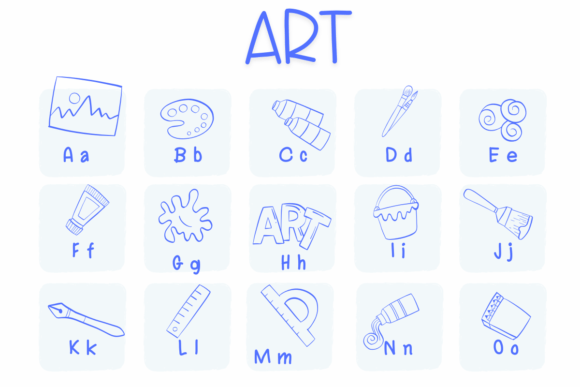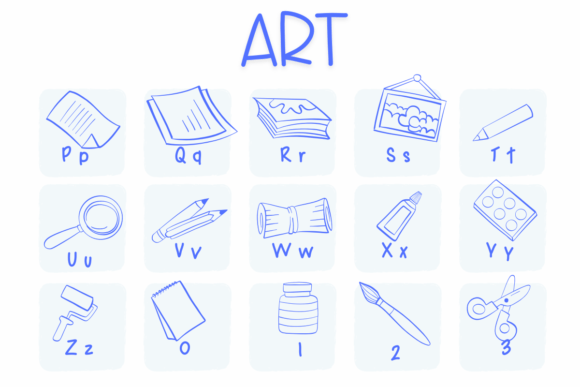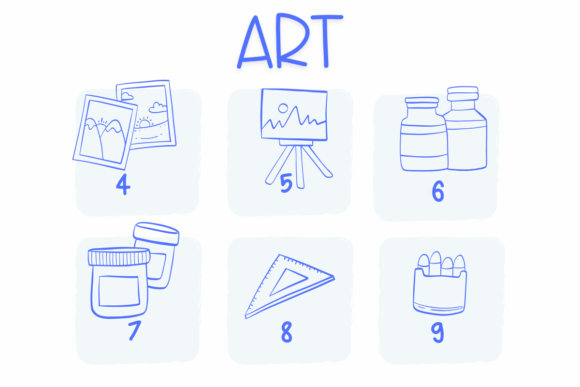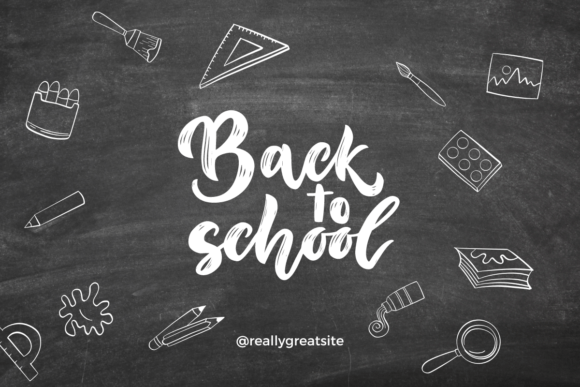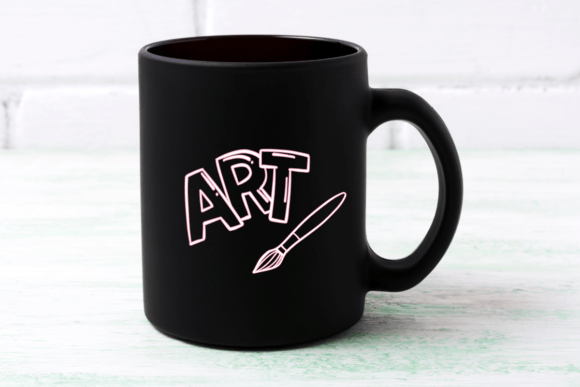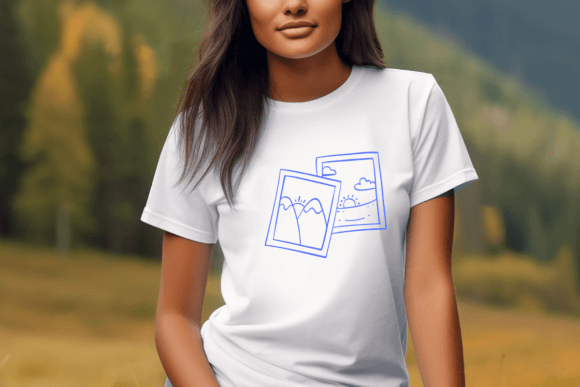
Unleash Your Creativity with Art Font: The Ultimate Dingbat Font for Designers and Crafters
Are you a designer, crafter, or artist looking for a unique and creative way to add flair to your projects? Look no further than the Art Font, a dingbat font featuring a wide range of artistic tools like paintbrushes, pencils, and more. In this article, we’ll dive into the world of Art Font and explore its features, benefits, and uses, helping you to unlock its full potential and take your designs to the next level.
What is Art Font?
Art Font is a dingbat font that showcases a vast collection of artistic tools and symbols, carefully crafted to inspire creativity and add a touch of elegance to your designs. With Art Font, you can add a splash of color and personality to your projects, making them stand out from the crowd. Whether you’re working on a graphic design project, crafting a handmade card, or creating digital art, Art Font is the perfect companion to help you express your artistic side.
Features of Art Font
So, what makes Art Font so special? Here are some of its key features:
- Variety of artistic tools: From paintbrushes and pencils to scissors and palettes, Art Font features a diverse range of artistic tools to help you create unique and eye-catching designs.
- High-quality glyphs: Each glyph in Art Font is carefully crafted to ensure high-quality and crisp lines, making it perfect for both digital and print projects.
- Easily scalable: Art Font is designed to be easily scalable, allowing you to use it in a variety of projects, from small icons to large-scale posters.
Benefits of Using Art Font
So, why should you choose Art Font for your next project? Here are some benefits of using Art Font:
- Adds creative flair: Art Font helps you add a touch of creativity and personality to your designs, making them more engaging and eye-catching.
- Saves time: With Art Font, you can quickly and easily add artistic elements to your designs, saving you time and effort.
- Perfect for crafters and designers: Art Font is ideal for crafters, designers, and artists who want to add a professional touch to their projects.
- Unique and versatile: Art Font is a unique and versatile font that can be used in a wide range of projects, from digital art to handmade crafts.
Using Art Font in Your Projects
So, how can you use Art Font in your projects? Here are some ideas to get you started:
- Graphic design projects: Use Art Font to add a creative touch to your graphic design projects, such as brochures, flyers, and posters.
- Handmade crafts: Add Art Font to your handmade crafts, such as cards, scrapbook pages, and journal entries.
- Digital art: Use Art Font to create unique and eye-catching digital art, such as illustrations, graphics, and animations.
- Social media graphics: Add Art Font to your social media graphics, such as Instagram posts, Facebook graphics, and Twitter headers.